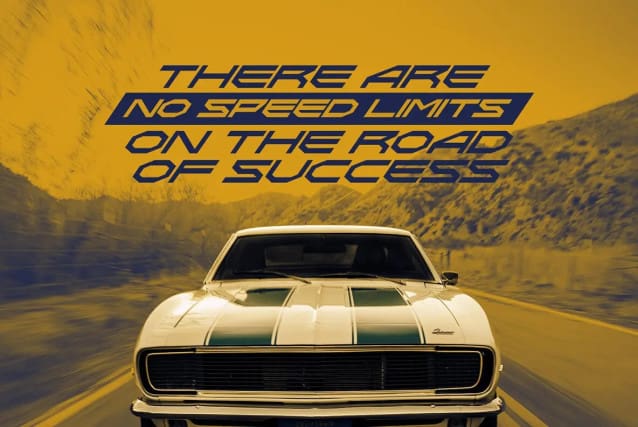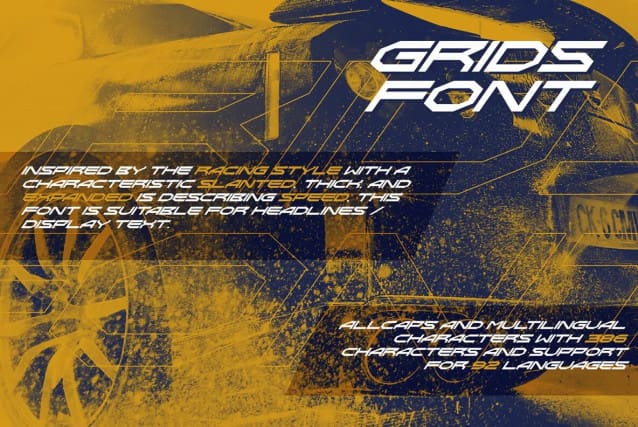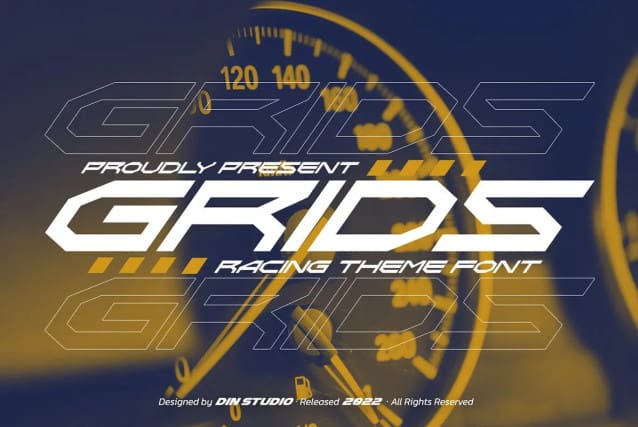
Grids Display Font
Grids Display Font is a display font designed in a racing theme showing a firm display and a sharp angle in each letter to give a unique attractive impression. Additionally, it provides interesting features to help designers maximize their design products.